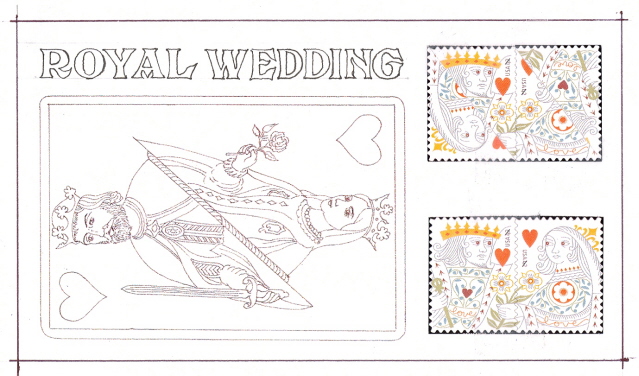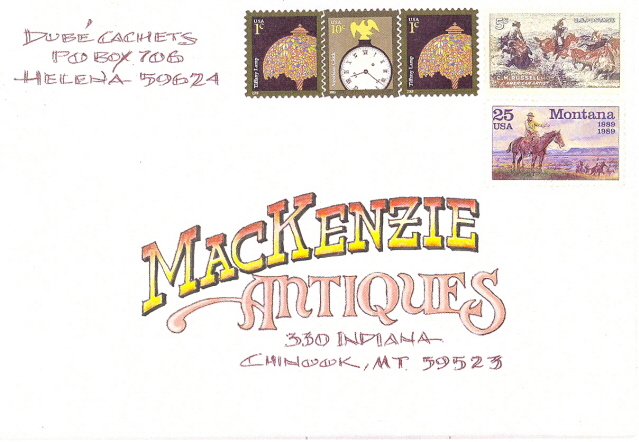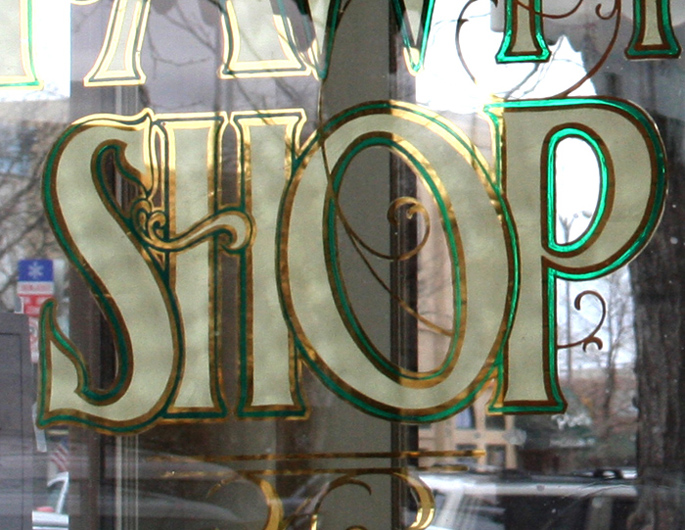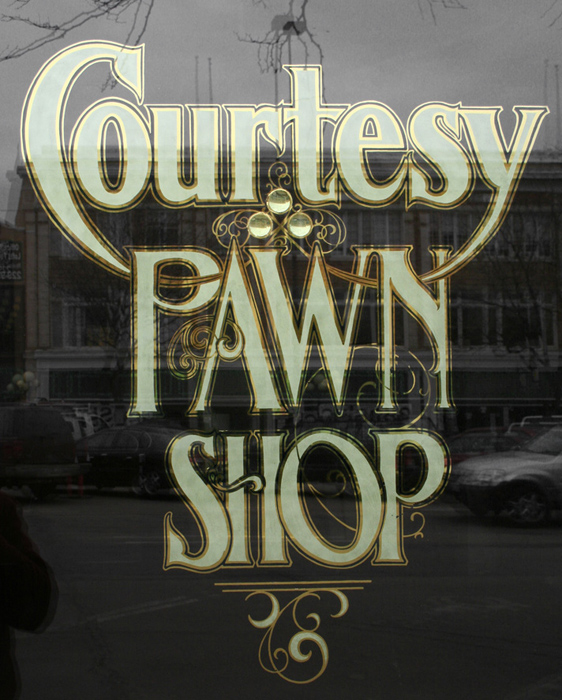
Welcome here, Dave, I'm somewhat new here too. I looked up your work online it really got me thinking about how us creative folks find the niches we do. Anyway, the Eccentric French font you're going to use for the Royal Wedding envelope is one of my favorites. It was originally published in 1909. Here's a little more info- http://albanysigns.com/eccentric_french_font.htm#
As you can see, I went partners with a professional font designer to produce it as a computer font. The digital font is copyrighted and for sale for money, however the actual letterforms are not copyrightable in the US. Big time foundries steal each others designs and probably always will. Eccentric French was designed and included in Atkinson's book to be used very much as you are going to use it. Mr. Atkinson's only qualm with your use might be that you work too small